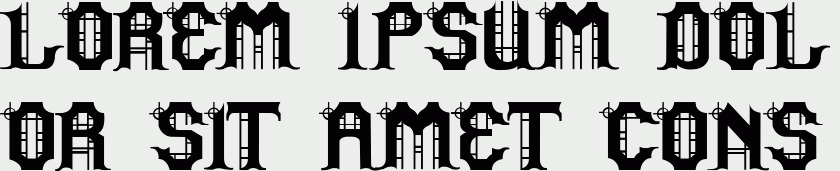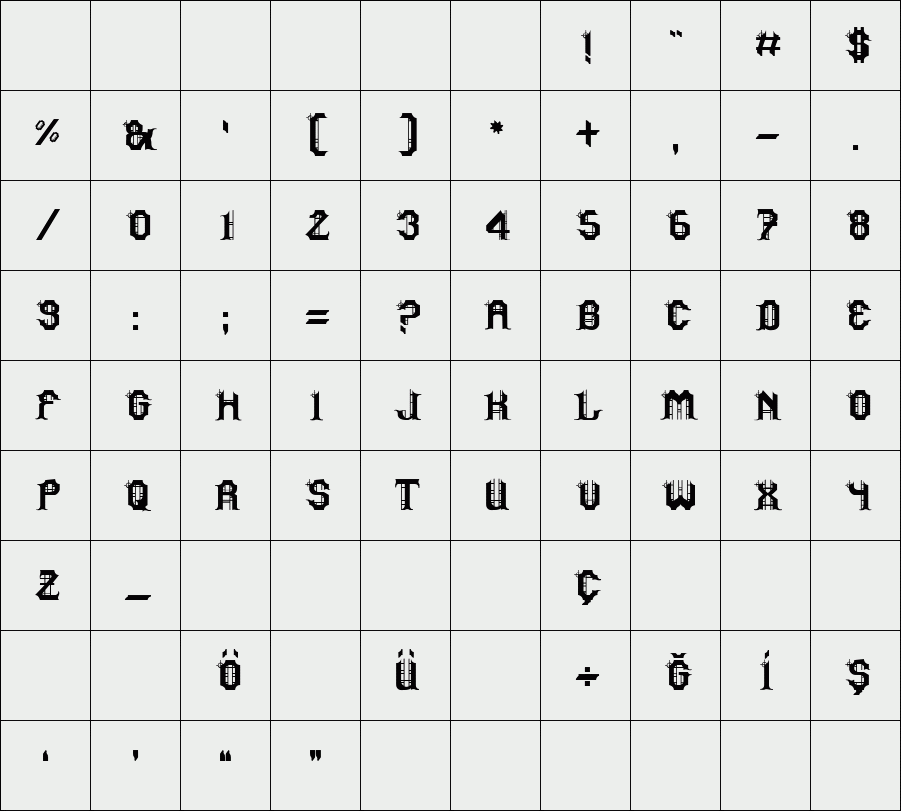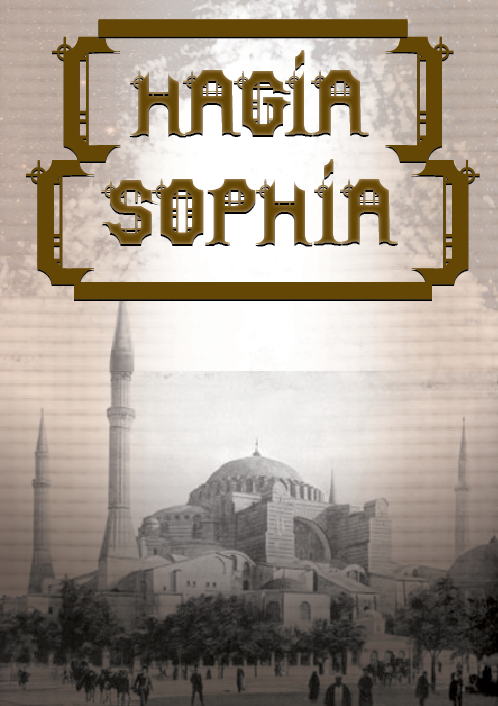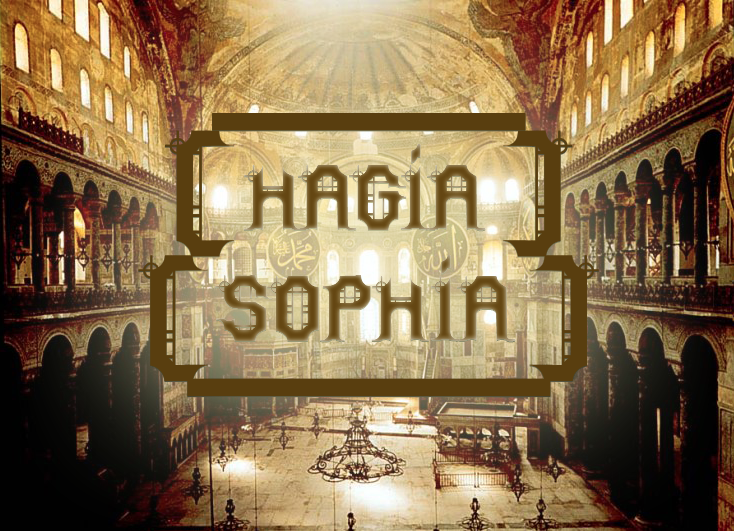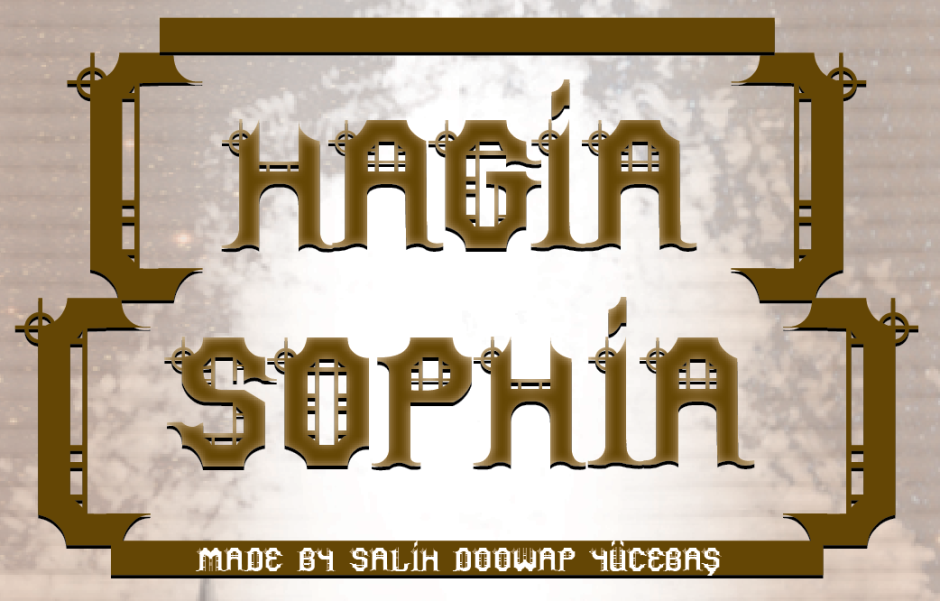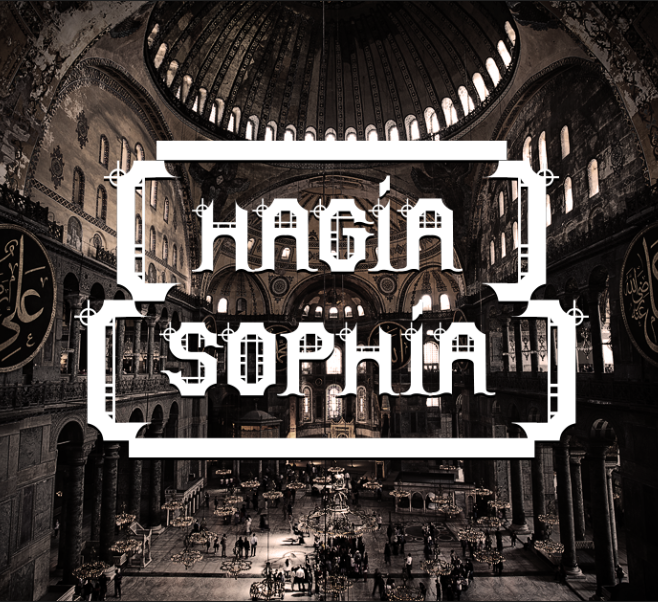
HAGİA SOPHİA
/ Hagia Sophia
Hagia Sophia's name came from Hagia Sophia Museum in Istanbul. Museum is Church at first. Than Ottomans make it mosque. Now its museum because you can see two beautiful things at once... And my font designs starts from there... Church windows and mosaics, mosques windows and circular shapes...